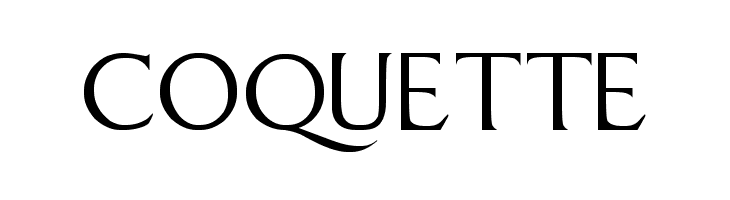
Holiday Harmony Deer Font
- Font: Holiday Harmony Deer
( Fonts by Christopher Hansen )
A classic serif font with elegant, sharp serifs and subtle medieval influences.